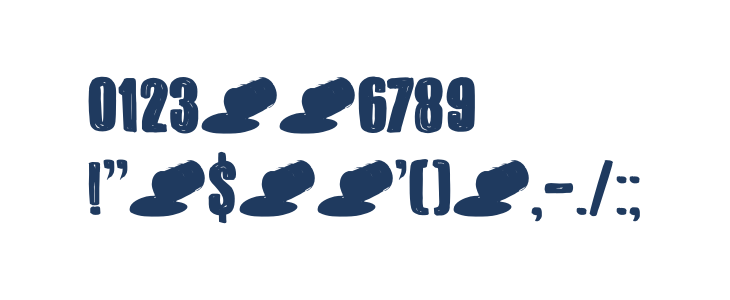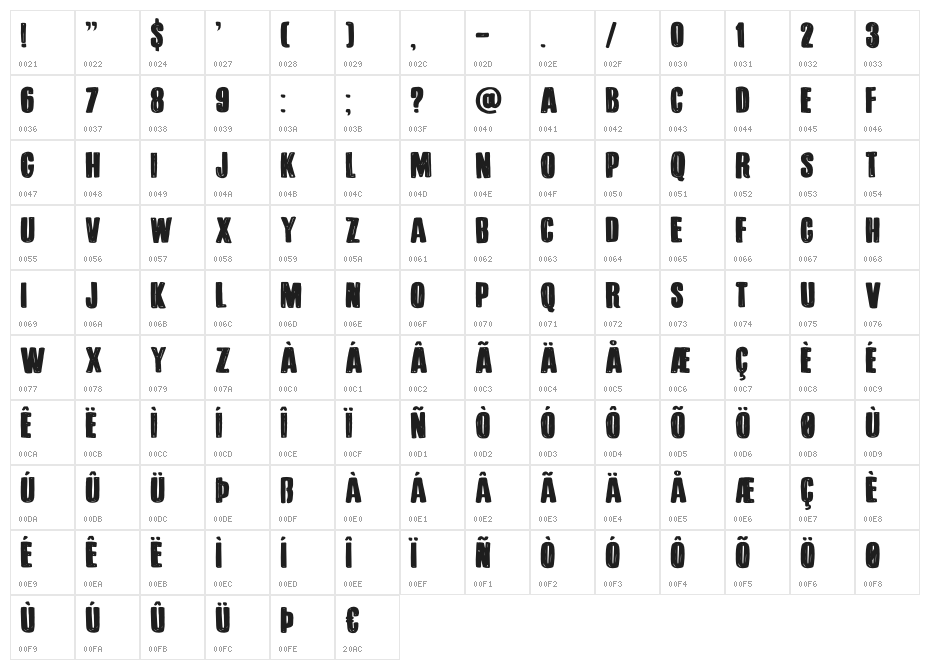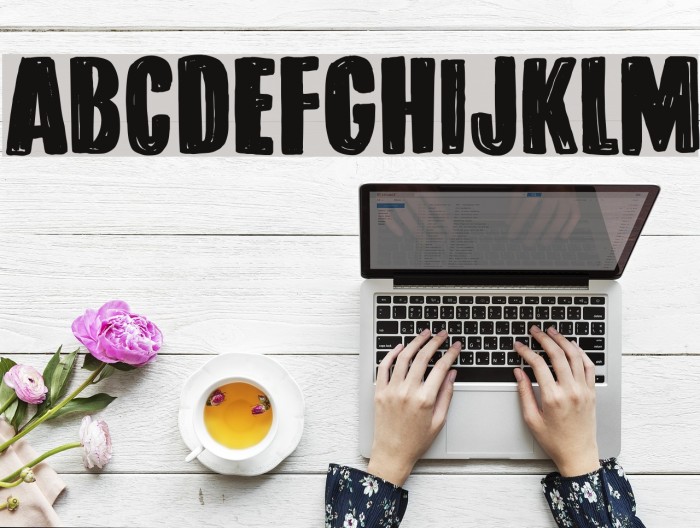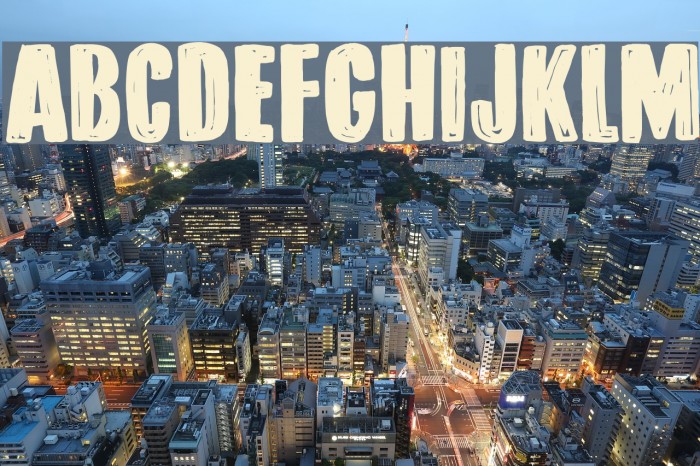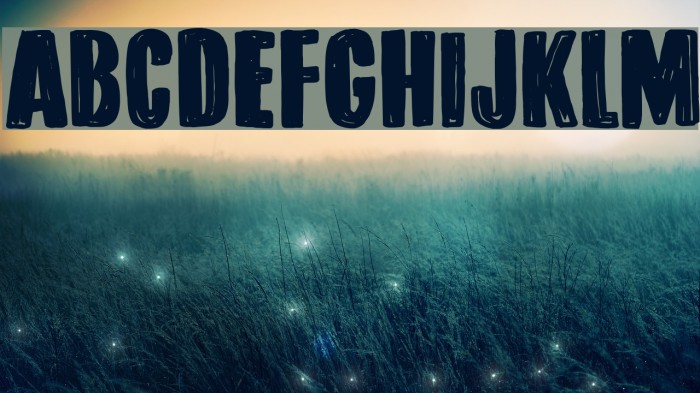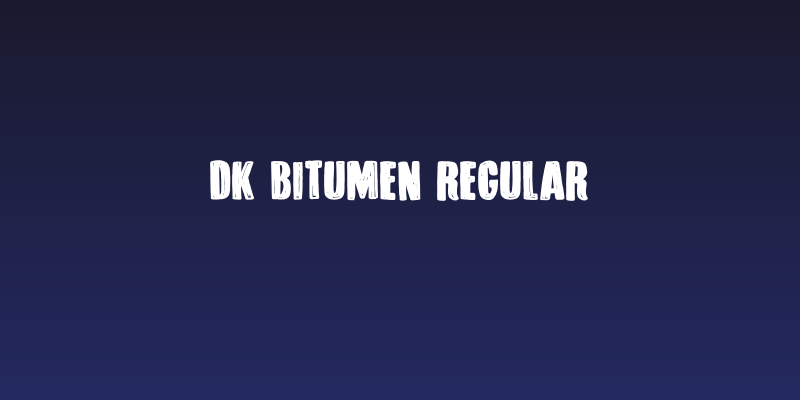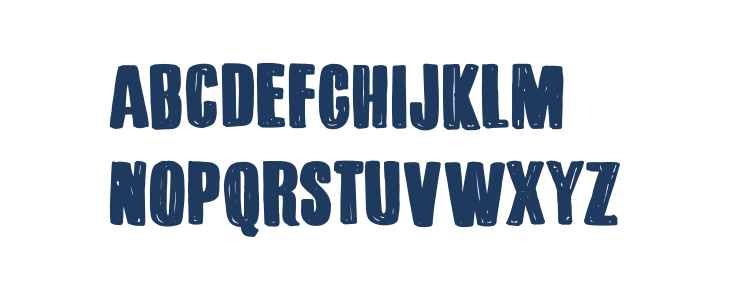
DK Bitumen Regular Font
DK Bitumen Regular Description
This font features a bold and rugged design with a distressed texture that gives it a gritty, industrial feel. The characters are thick and heavy, with uneven edges that add to the raw, handcrafted appearance. The uppercase and lowercase letters maintain a consistent weight, creating a cohesive look across the alphabet. Numbers and special characters are designed with the same boldness, ensuring uniformity throughout. This font's unique style is perfect for projects that require a strong, impactful visual presence.
Overall StyleIndustrial, Rugged
Proposed ProjectsIdeal for posters, album covers, branding for edgy products, or any design needing a strong, impactful typeface.